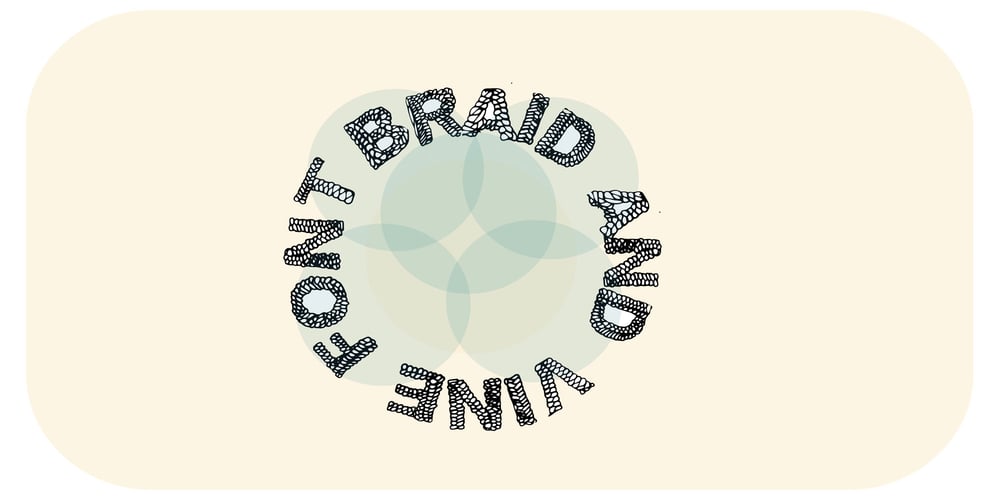
BraidsJGP
BraidsJGP font
BraidsJGP Font Family was designed by Jeremy Gill-Praba and published by Jointype. BraidsJGP contains 1 styles and family package options. This font is based on plates and braids of the hair ; It is also inspired by the interlocking nature of plants and basket weaving .